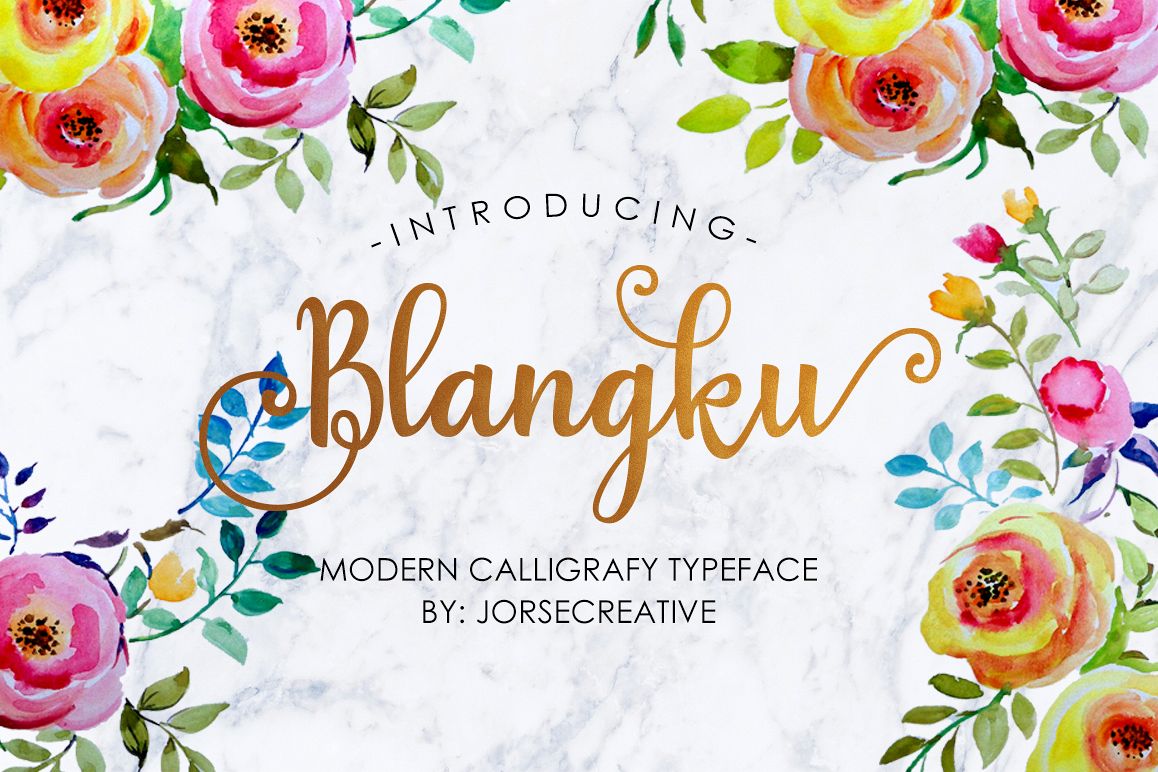
Blangku Font
Blangku
Blangku is a font that hand by having the character like a
dancer. Blangku has a very unique style of calligraphy, it is very suitable for
use in the work of modern design. combines from copperplate to contemporary
typeface with a dancing baseline, modern and elegant touch. Blangku features
469 glyphs and alternate characters Include . including initial and terminal
letters, alternates, ligatures and multiple language support.
The Features of this fonts is
• Standart Upercase
• Standart Lowercase
• Number. Punctuations & Simbol
• Swash Alternatives Upercase
• Stylistic Alternatives Lowercase
• Initial & Terminal Alternative
• Standart Ligatures
• Discretionary Ligatures
Languages supported: Breton, Catalan, Czech, Danish,
Estonian,French, German, Hungarian, Icelandic, Italian, Romanian, Scottish
Gaelic, Slovak, Latvian, Lithuanian, Norwegian, English, Finnish, Polish,
Portuguese, Slovenian, Spanish, Swedish, Turkish, Welsh. Basically, all
european languages that are based on latin alphabet
Can be used for various purposes.such as headings, logos,
wedding invitation, t-shirt, letterhead, signage, lable, news, posters, badges